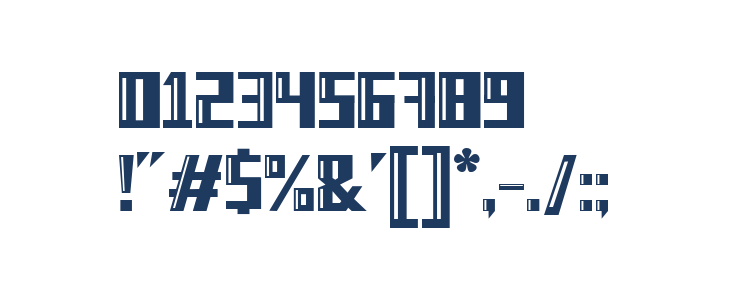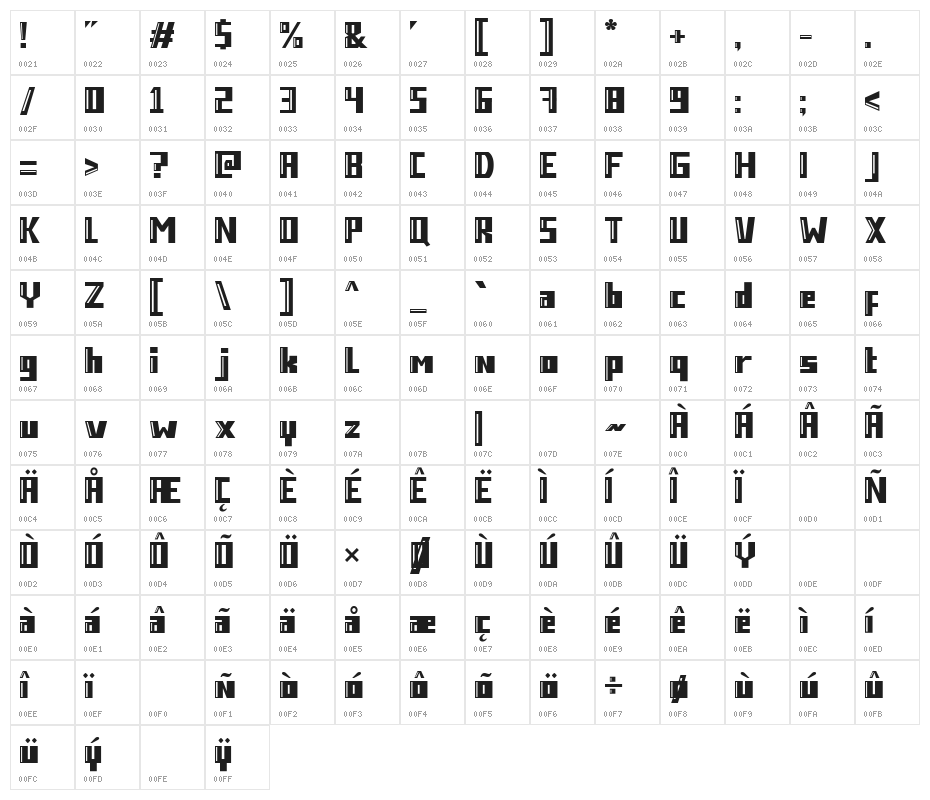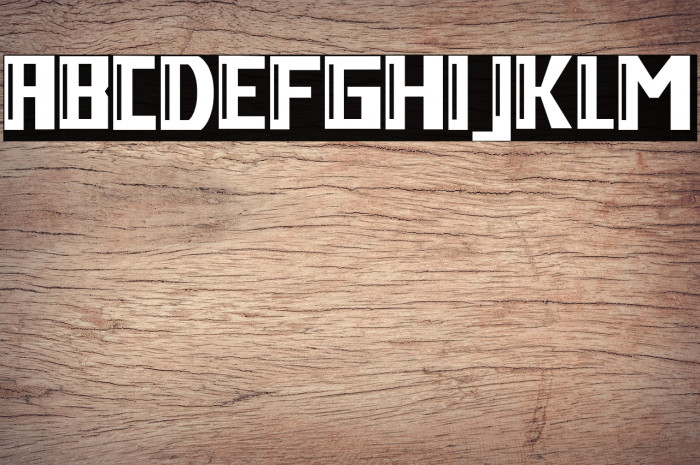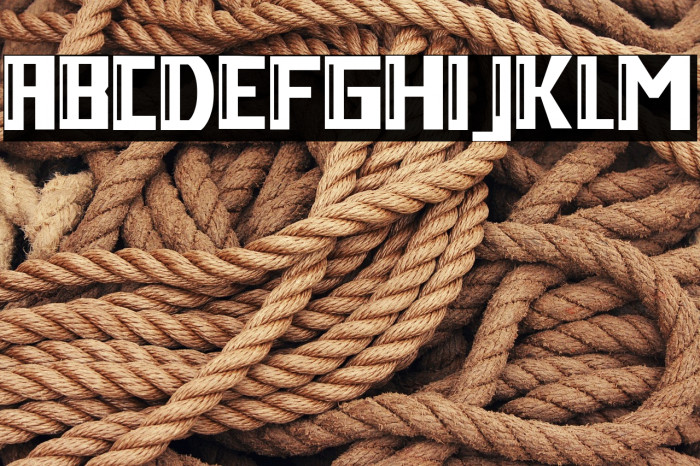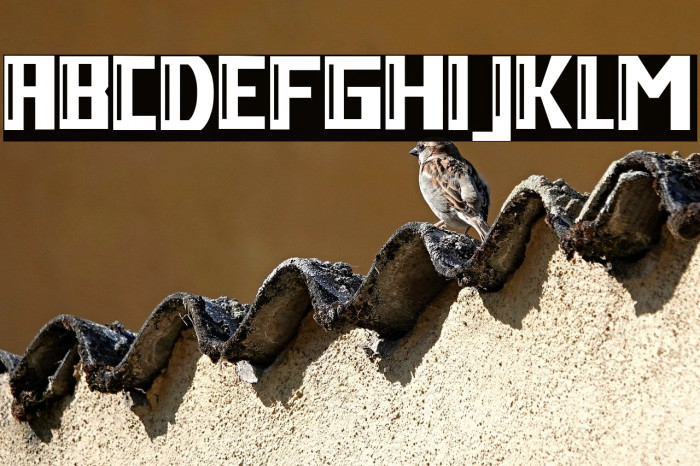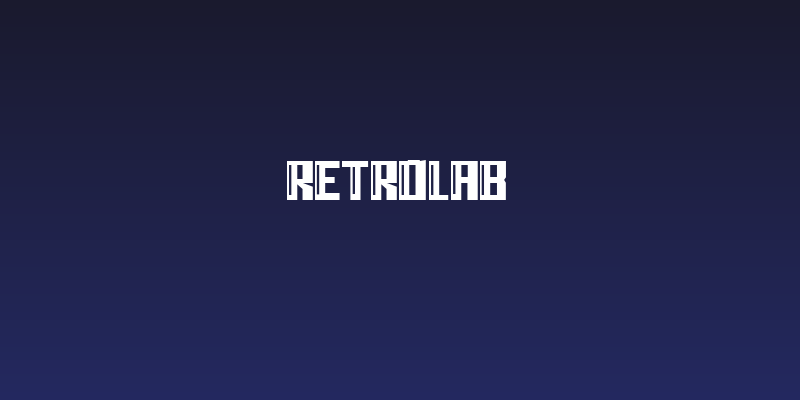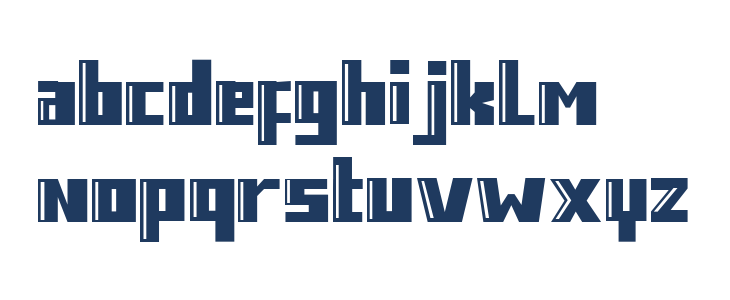
Retrolab Font
Retrolab Description
This font features a bold, geometric design with a distinct retro-futuristic aesthetic. The characters are constructed with sharp angles and clean lines, creating a striking visual impact. Uppercase and lowercase letters maintain a consistent style, with a blocky and robust appearance. The numerals and special characters follow the same design principles, ensuring uniformity across the typeface. This font's unique style makes it suitable for projects that require a vintage yet modern look, such as posters, branding, and digital media.
| Overall Style | Retro-Futuristic |
| Proposed Projects | Ideal for posters, branding, digital media, and any project needing a vintage-modern aesthetic. |